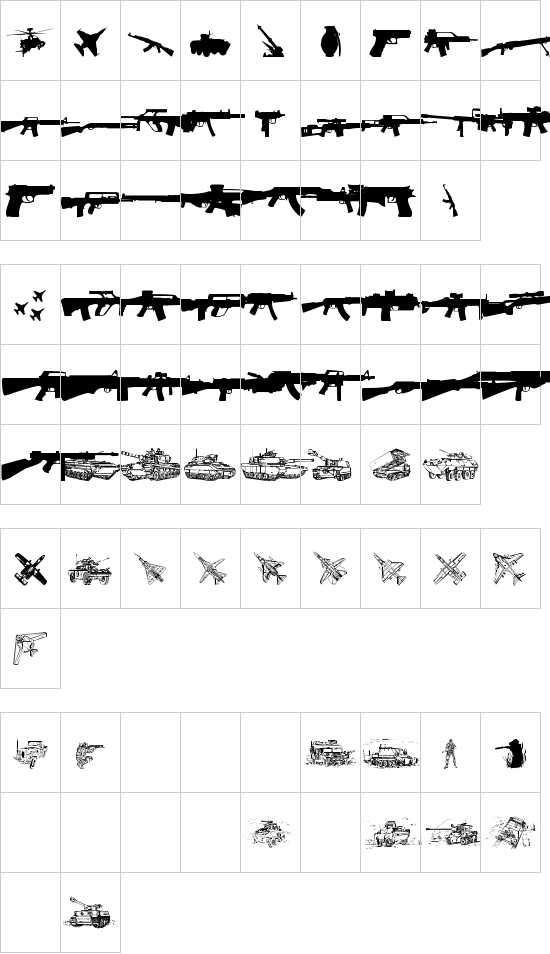
Army Weapons TFB
About Army Weapons TFB
Army Weapons TFB is a dingbat font filled with military hardware and combat-themed glyphs in place of letters. Pressing different keys produces vehicles, gear, and weaponry drawings, giving the set a clear tactical theme throughout.